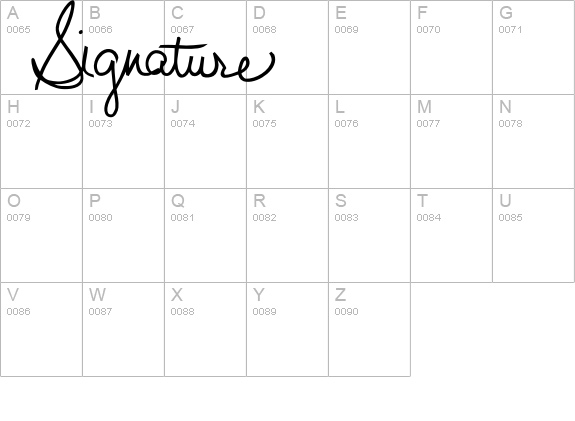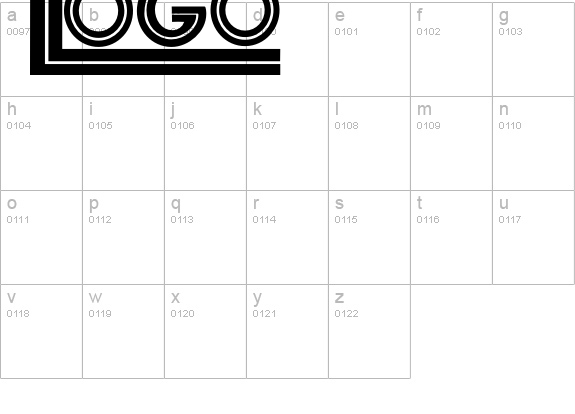
SIGLOGO is a modern and stylish font that embodies a perfect blend of sophistication and creativity. With its sleek lines and bold curves, this typeface is sure to make a statement in any design project. Whether used for logos, headlines, or body text, SIGLOGO adds a touch of elegance and professionalism. What sets SIGLOGO apart is not just its stunning design, but also its accessibility. This font is available for free, allowing designers and enthusiasts alike to effortlessly elevate their work without breaking the bank. By offering this font for free, the creators of SIGLOGO have made it possible for everyone to enjoy its beauty and versatility. Downloading SIGLOGO is a breeze, as it can be found on FontsMarket.com, a trusted source for high-quality fonts. This platform ensures a seamless and secure download process, giving users peace of mind knowing they are getting a legitimate and reliable font. With just a few clicks, designers can add SIGLOGO to their font collection and unlock unlimited creative possibilities. SIGLOGO's versatility is showcased in its ability to adapt to various design styles. Whether you're working on a sleek and minimalistic logo or a bold and vibrant poster, this font effortlessly complements and enhances the overall aesthetic. Its clean and crisp lines ensure legibility at any size, making it suitable for both print and digital applications. Designed with the utmost attention to detail, SIGLOGO is a font that demands attention. Its precise spacing and well-balanced proportions create a harmonious visual experience, ensuring that each character works seamlessly with the others. The result is a font that exudes confidence and professionalism, making it a perfect choice for businesses, branding, and marketing materials. In conclusion, SIGLOGO is a stunning font that combines elegance, versatility, and accessibility. Its availability as a free download on FontsMarket.com ensures that designers of all skill levels can add this font to their arsenal without any cost. Whether used for personal or commercial projects, SIGLOGO is a font that will elevate your designs and leave a lasting impression.